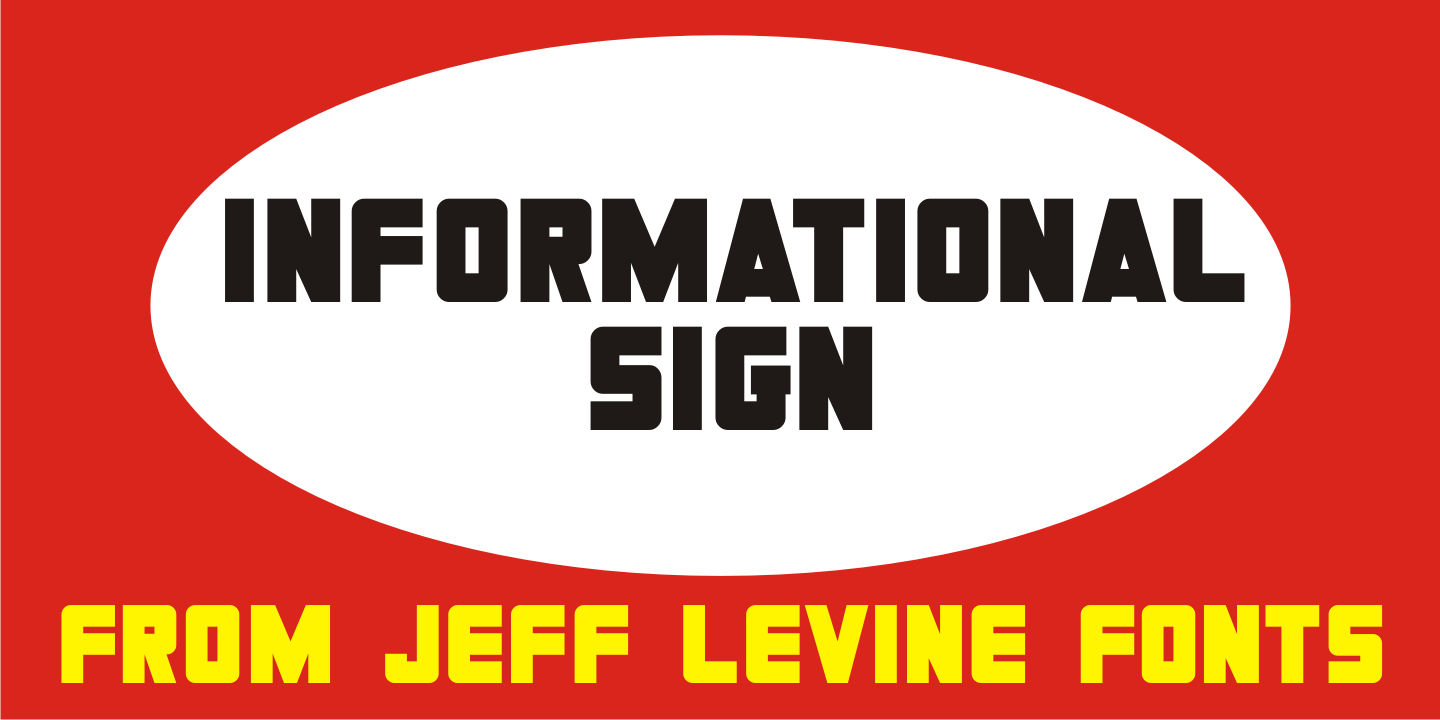
Informational Sign JNL is a display sans font published by Jeff Levine Fonts.
A vintage metal sign saying “No Dogs Allowed” was the model for the ultra-bold Art Deco-influenced lettering comprising Informational Sign JNL.